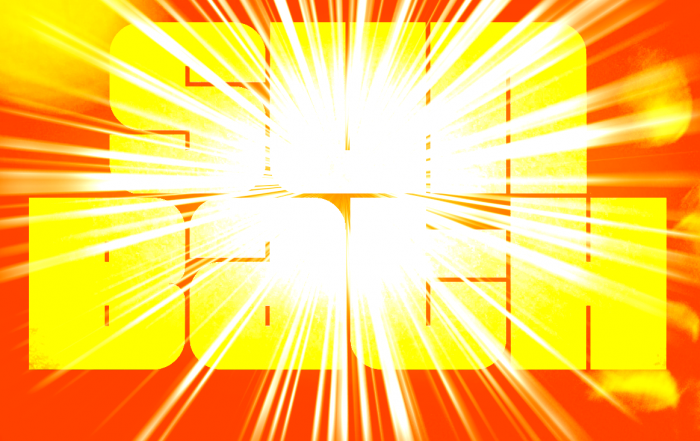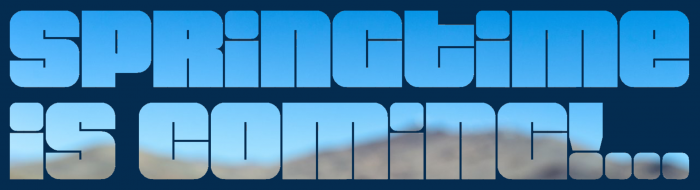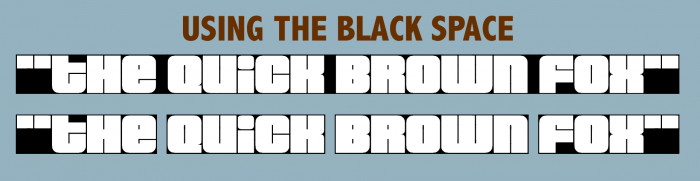
@swash.buckler: Thank you! It has been a bit difficult to achieve this effect of warm sunlight falling without using typical lens flare. I am also happy with the result.
@meek: Thanks a million from the South (today is raining here)! I've used this approach to a font before, but I couldn't resist trying a new linear text style by adding the use of black spaces...
wow, love the bright sample
briliant!
@swash.buckler: Thank you! It has been a bit difficult to achieve this effect of warm sunlight falling without using typical lens flare. I am also happy with the result.
@meek: Thanks a million from the South (today is raining here)! I've used this approach to a font before, but I couldn't resist trying a new linear text style by adding the use of black spaces...
Looks like Pricedown for sone reason, but very impressive!